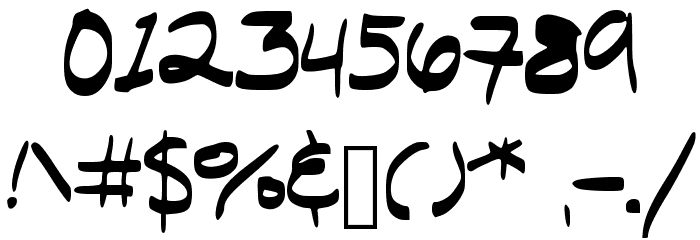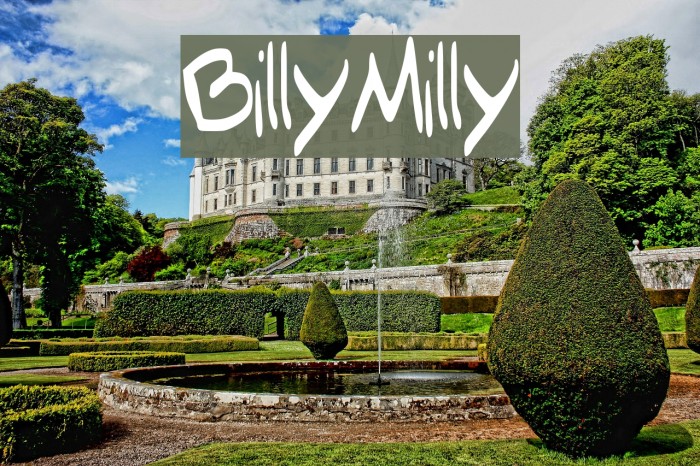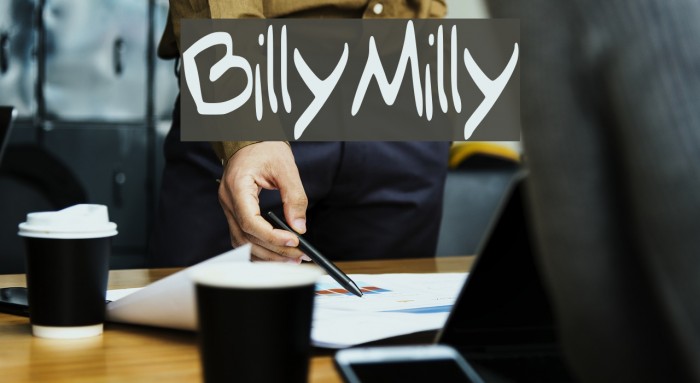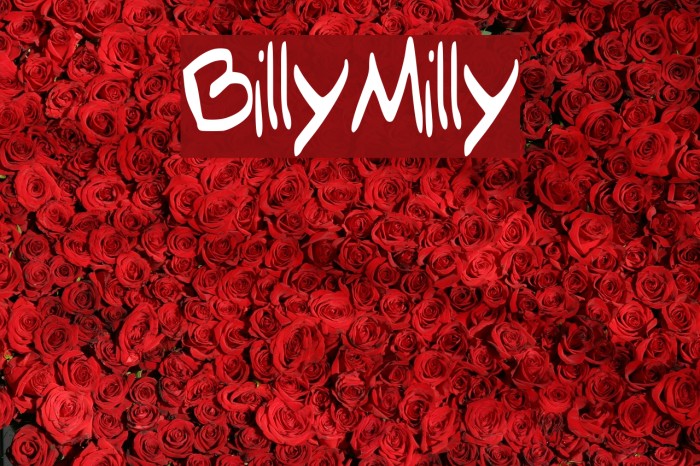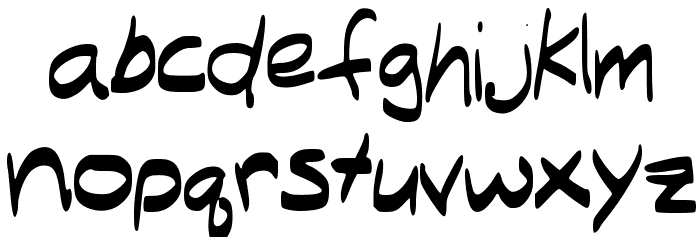
Billy_Milly Font
Billy_Milly Description
This font features a playful and casual handwritten style, characterized by its irregular strokes and dynamic flow. The letters exhibit a lively and spontaneous appearance, with varying thickness that adds to the informal charm. The uppercase and lowercase letters maintain a consistent style, while the numerals and special characters complement the overall aesthetic. This font's unique personality makes it ideal for projects that require a touch of whimsy and creativity.
| Overall Style | Casual, Playful |
| Use Case | Headlines, Informal text, Creative projects |
| Proposed Projects | Ideal for greeting cards, children's books, playful branding, and casual invitations. |